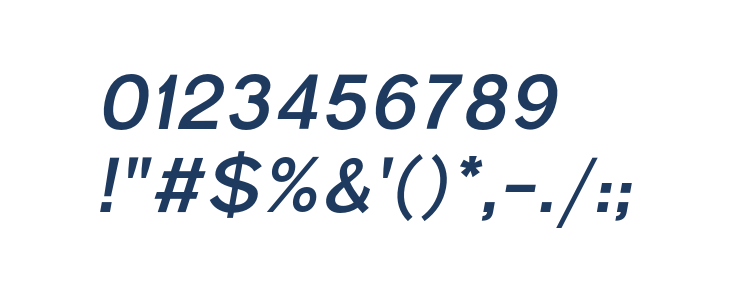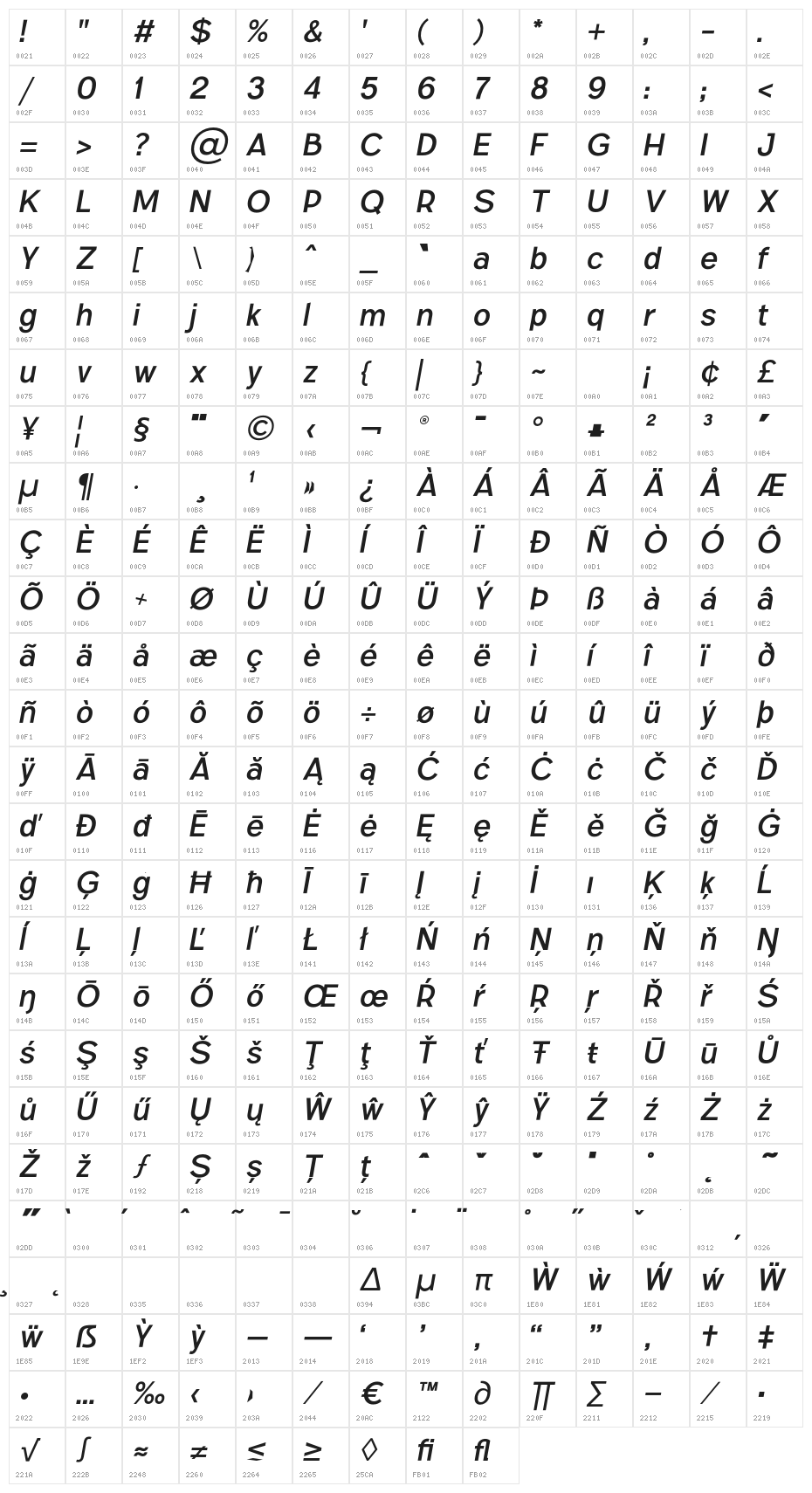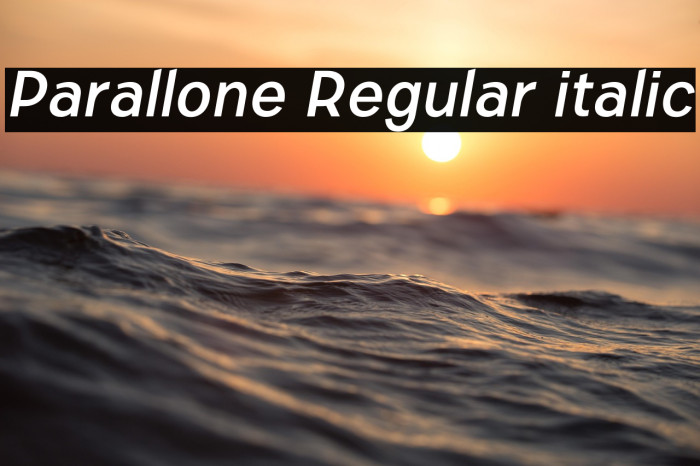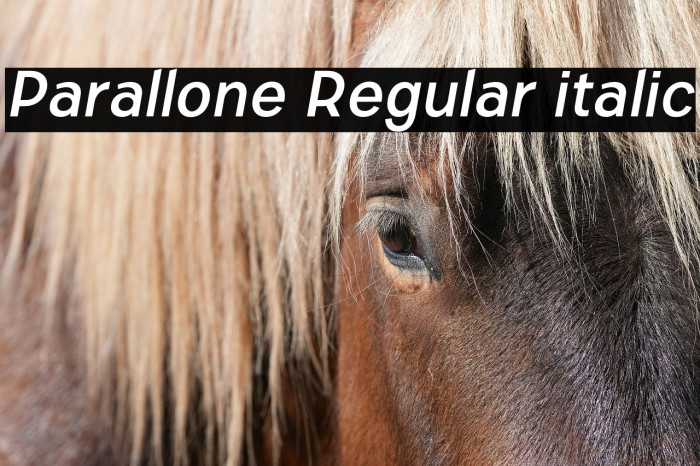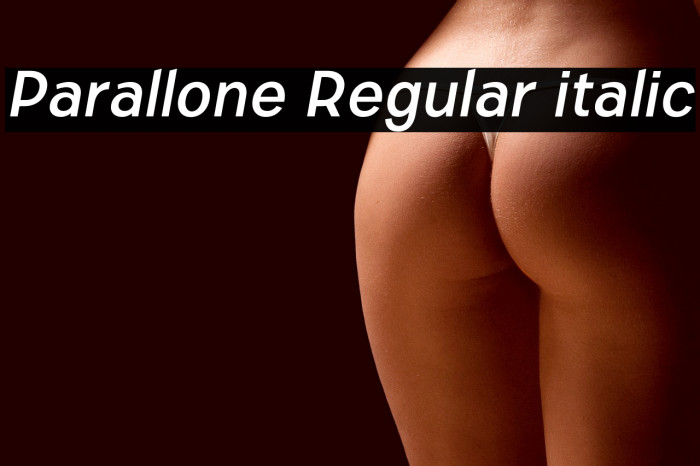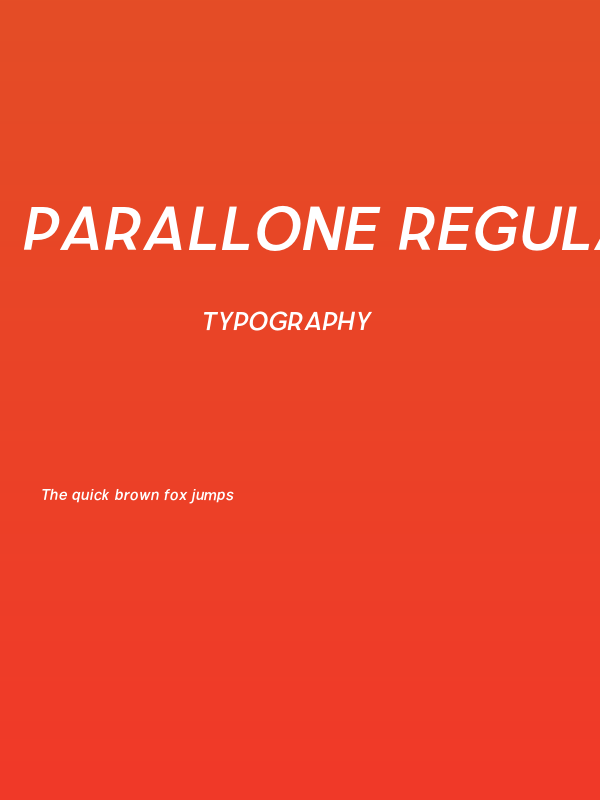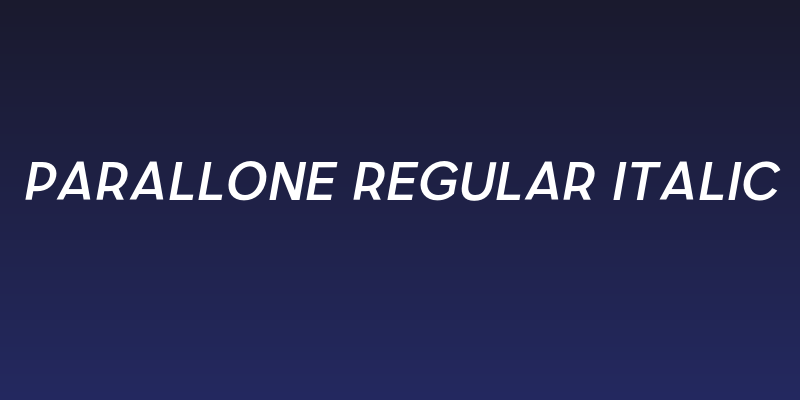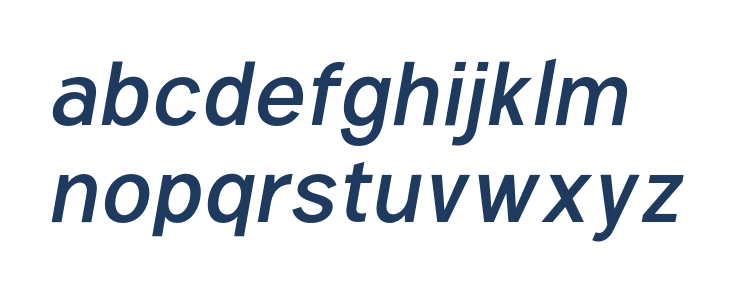
Parallone Regular italic Font
Parallone Regular italic Description
This font features a sleek and modern sans-serif design with a subtle italic slant, giving it a dynamic and forward-moving appearance. The characters are clean and well-defined, with consistent stroke widths that provide a uniform look across both uppercase and lowercase letters. The numerals are clear and easy to read, making them suitable for a variety of applications. Special characters are included, maintaining the same stylistic approach, ensuring versatility in use. The overall style is contemporary, making it ideal for projects that require a modern touch.
Proposed ProjectsIdeal for branding, advertising, digital content, and editorial design where a modern and clean aesthetic is desired.